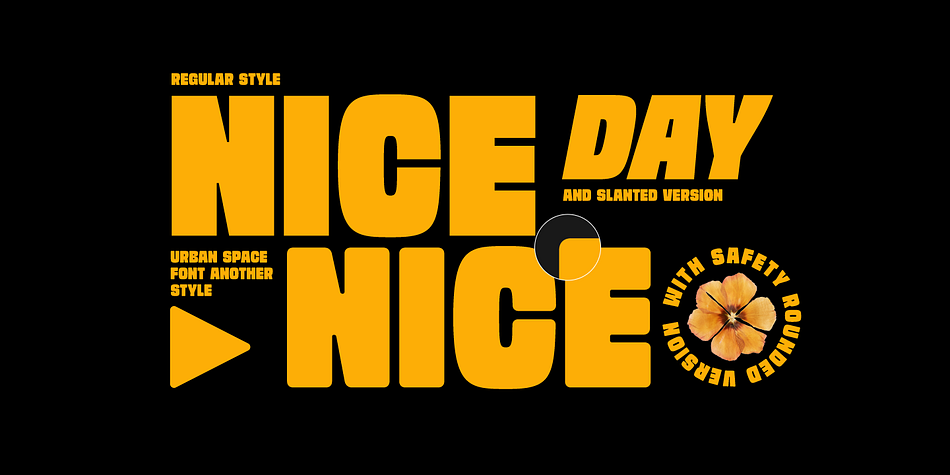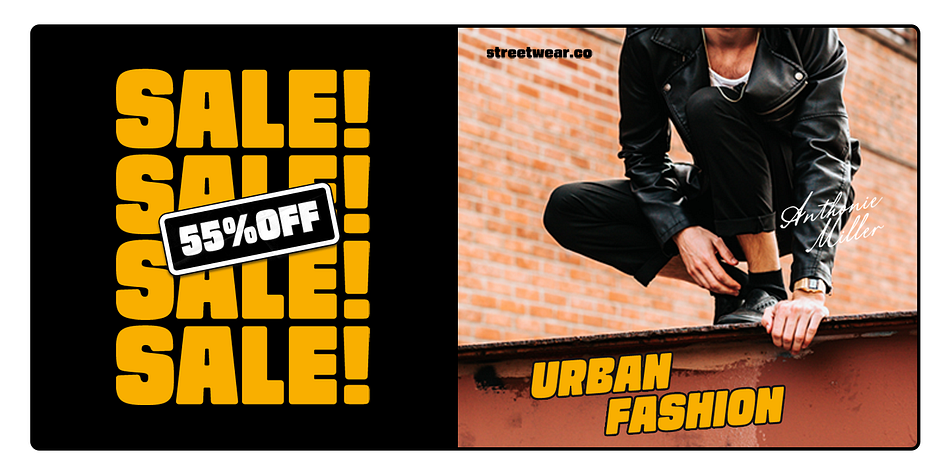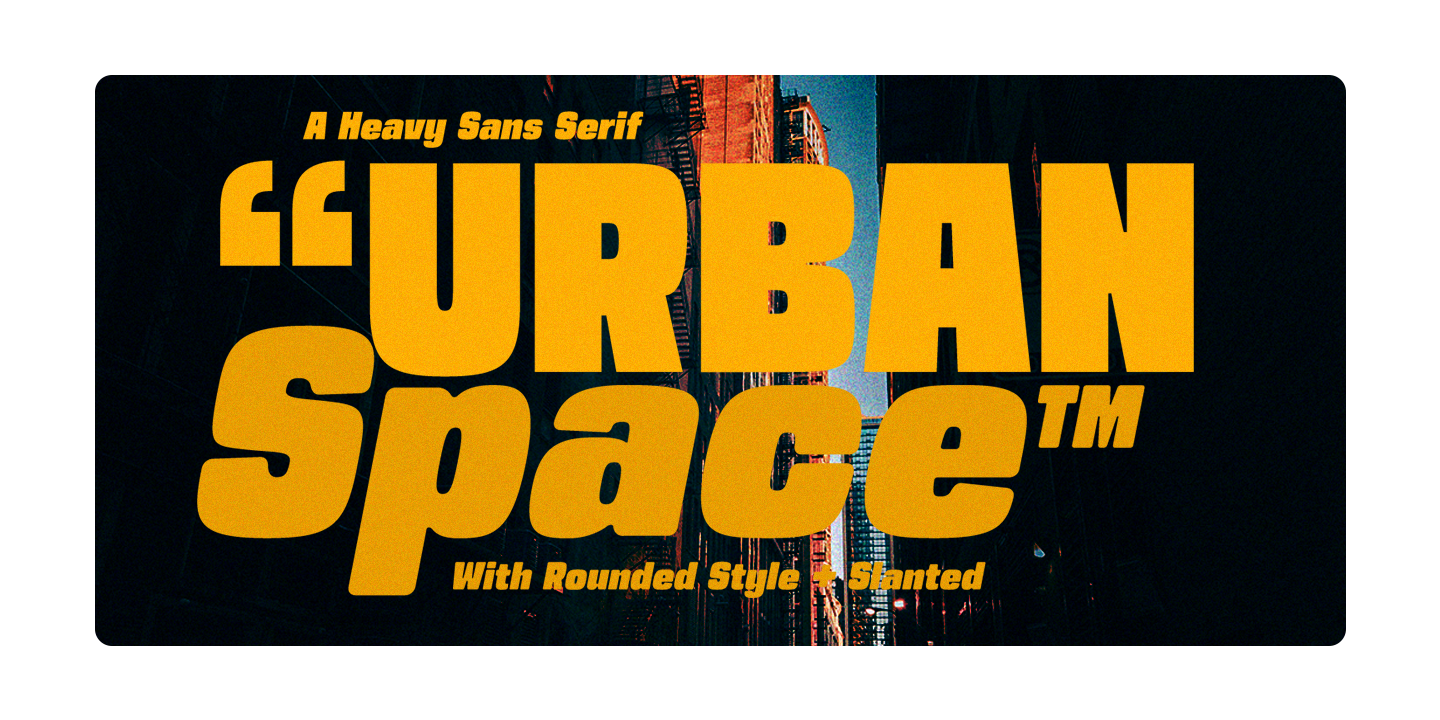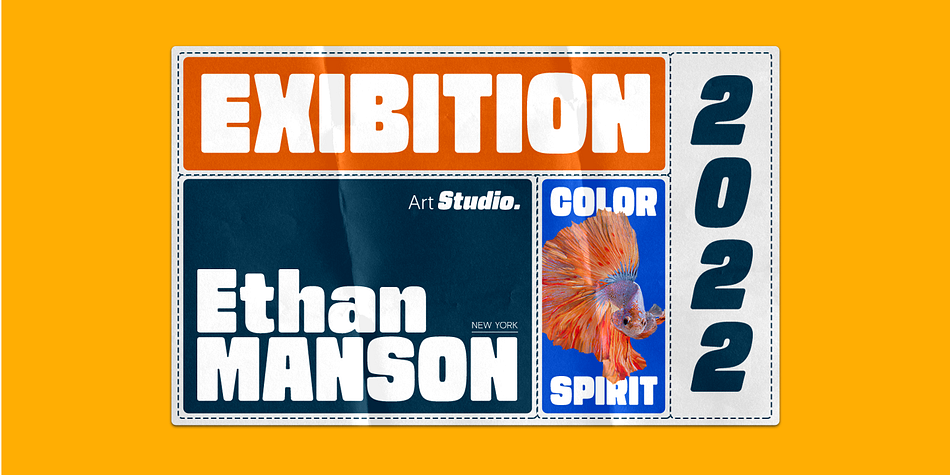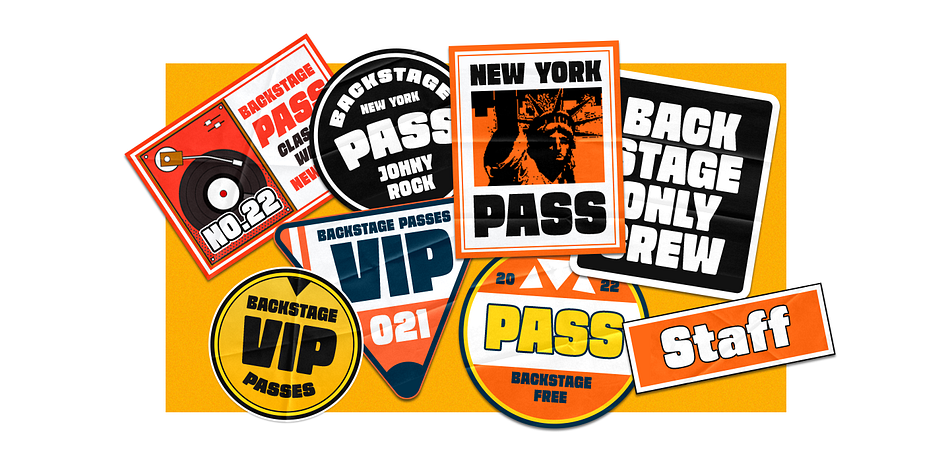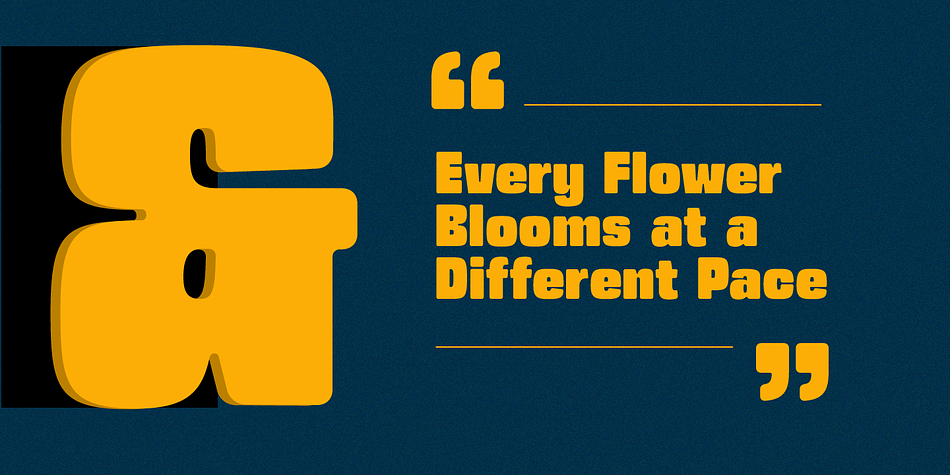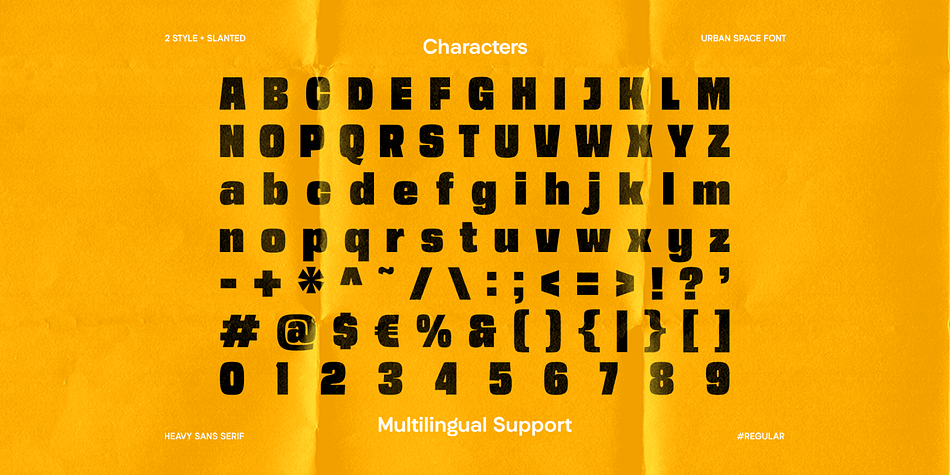
Designed by Hendry Juanda, Urban Space is a display sans font family. This typeface has four styles and was published by Letterhend Studio.
Urban Space is a heavy, bold, standout sans serif. This type of font perfectly made to be applied as a headline, logo, title, quotes which is need a standout font, and the other various formal forms such as invitations, labels, logos, magazines, books, greeting / wedding cards, packaging, fashion, make up, stationery, novels, labels or any type of advertising purpose.
- lowercase and uppercase
- ligatures